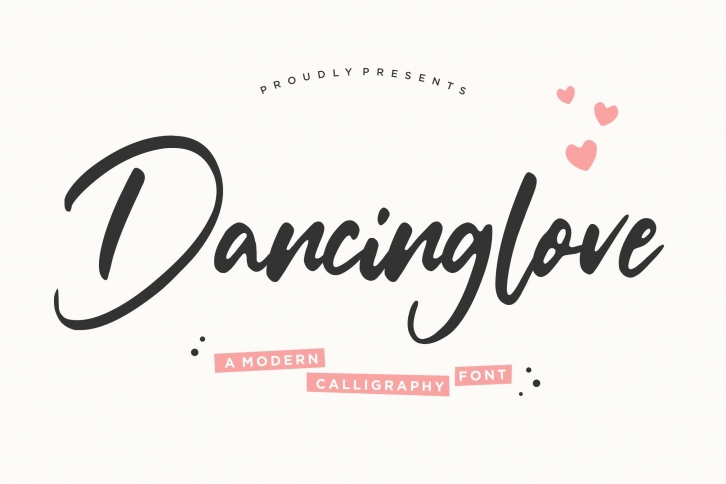
Dancinglove Modern Calligraphy is a great font that was designed by Balpirick. Imagine the amount of combinations you can create using this font! The archive is 14.34 MB and it was released on January 11, 2022. Dancinglove Modern Calligraphy looks beautiful on wedding invitations, greeting cards, logos, posters, labels, t-shirt designs, logos, business cards and is perfect for use in ink or watercolor works, fashion, magazines, packaging and food menus, children's books and more!